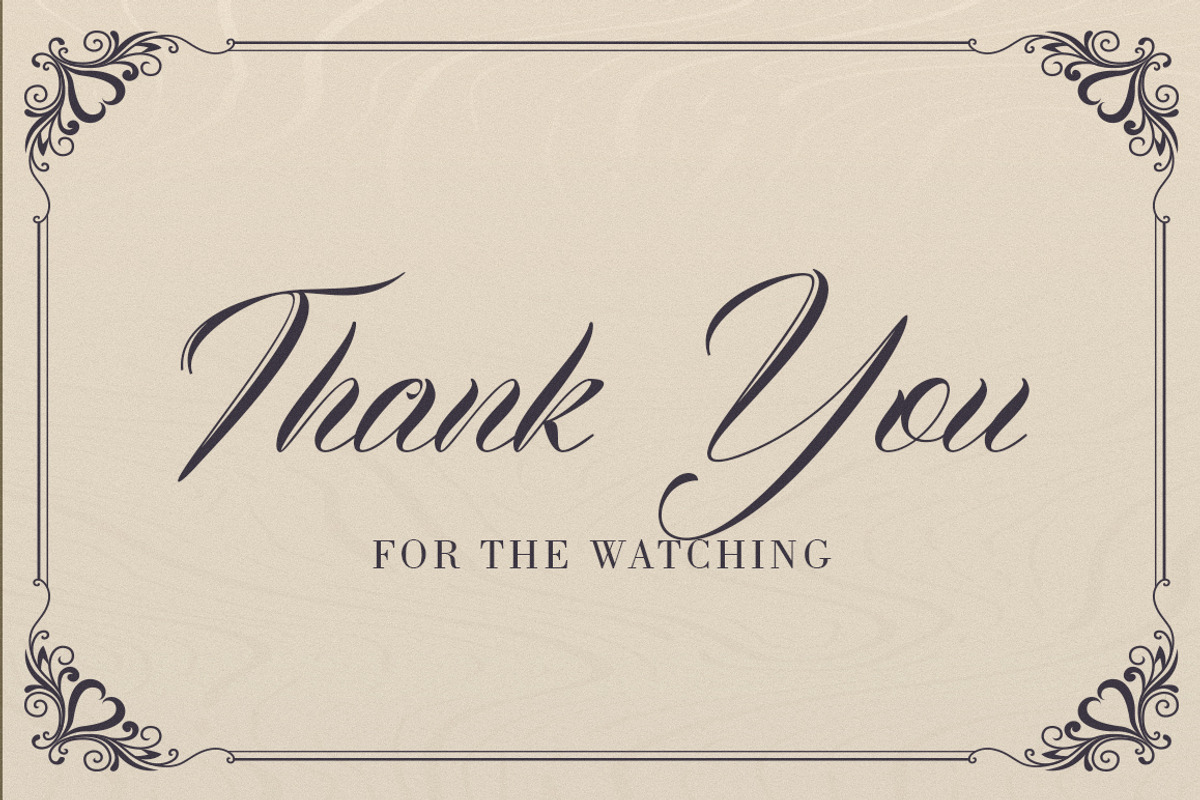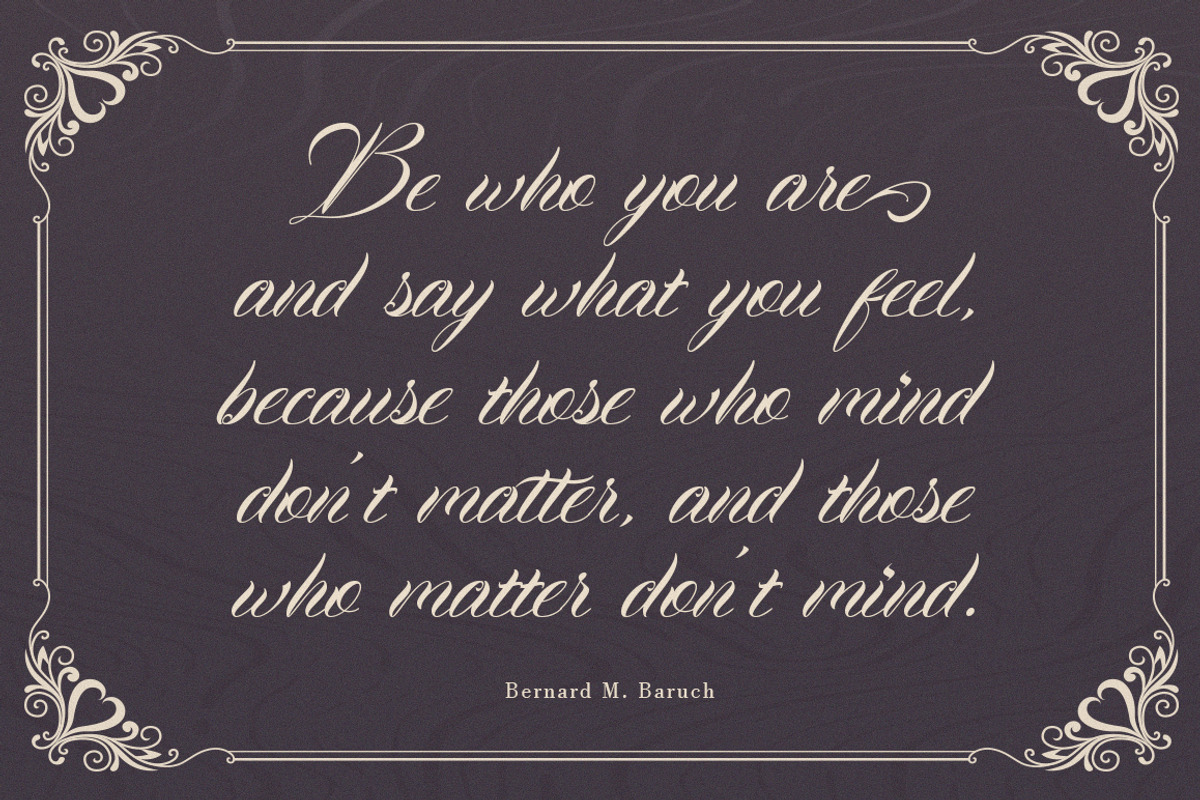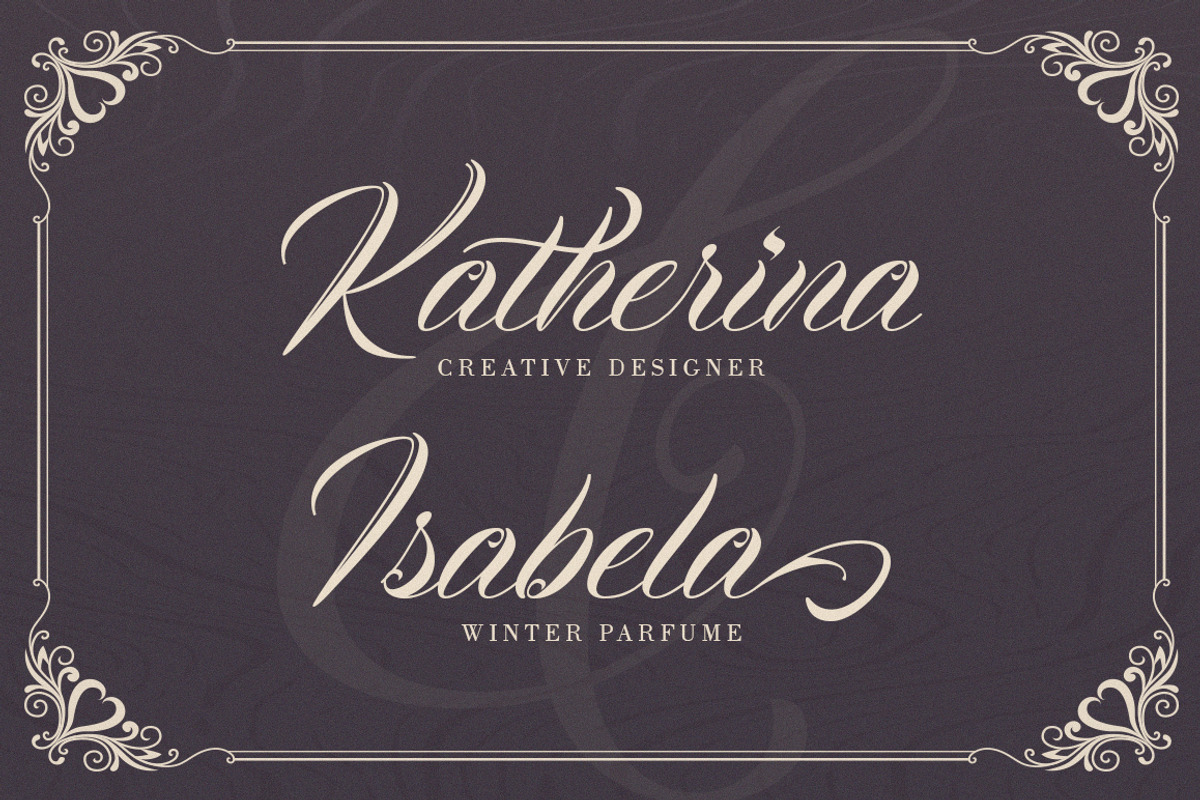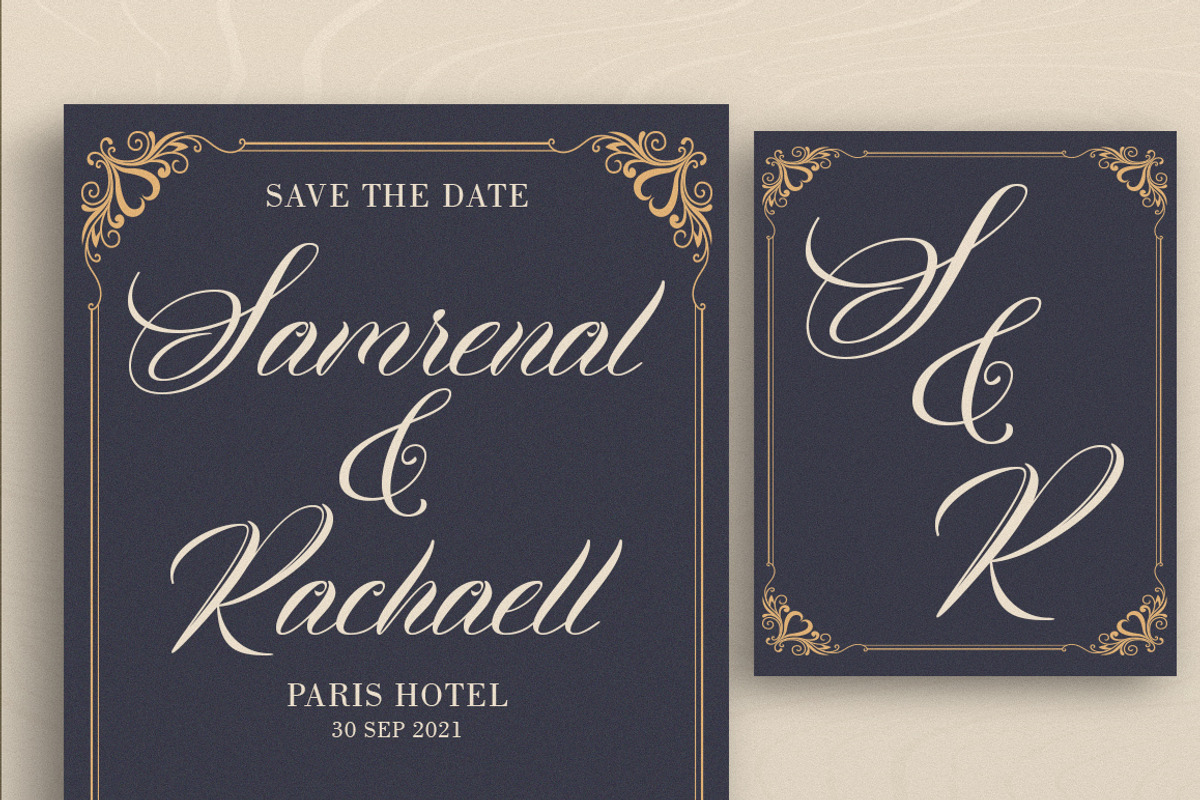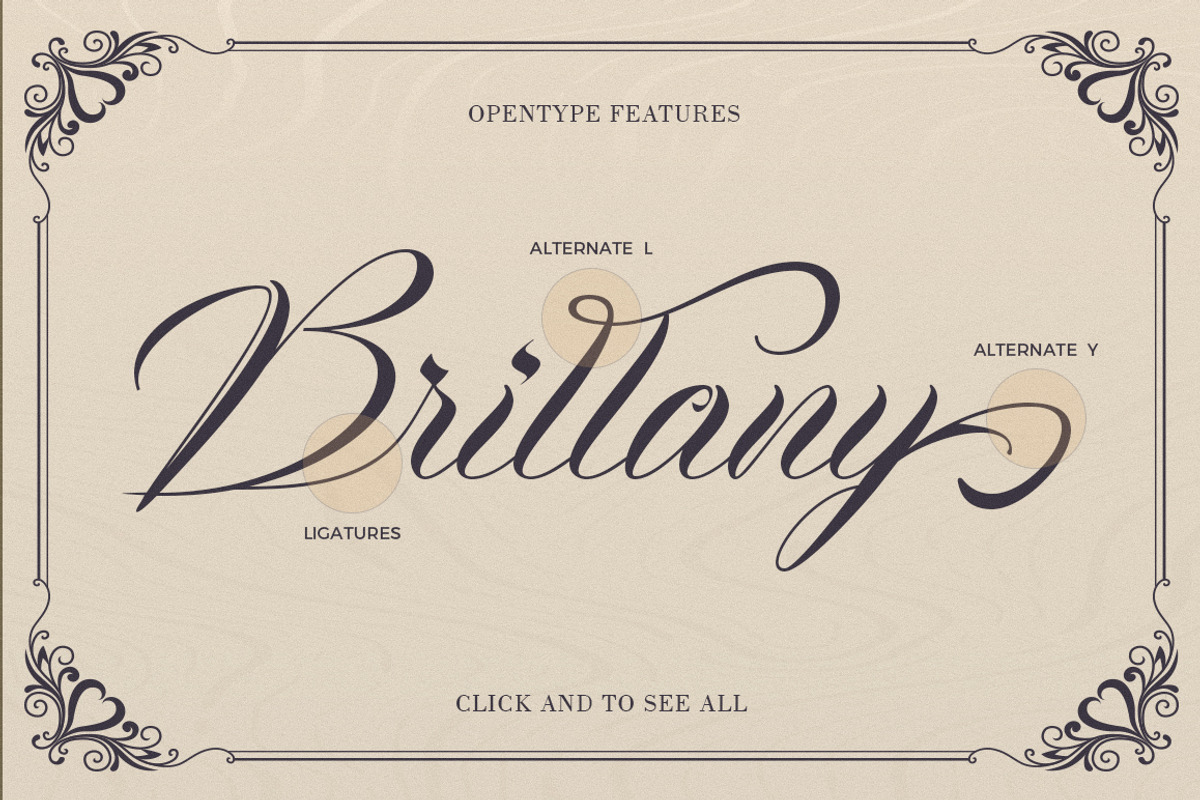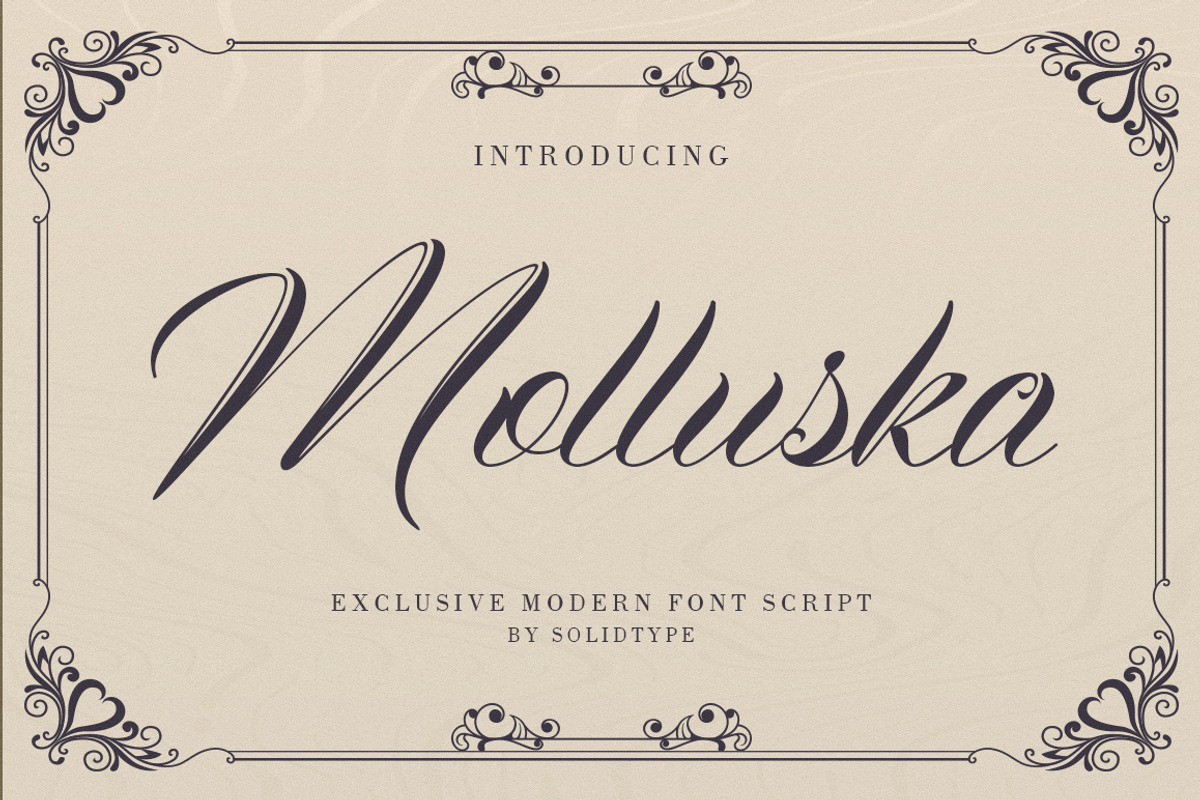
Molluska Script
Introducing Molluska, a calligraphy script font that comes with a very beautiful character change, a kind of classic tattoo decorative script with a modern twist, the classic style is very suitable to be applied in various formal forms such as invitations, labels, restaurant menus, logos, fashion, make up, stationery , novels, magazines, books, greeting / wedding cards, packaging, labels or any type of advertising purposes.